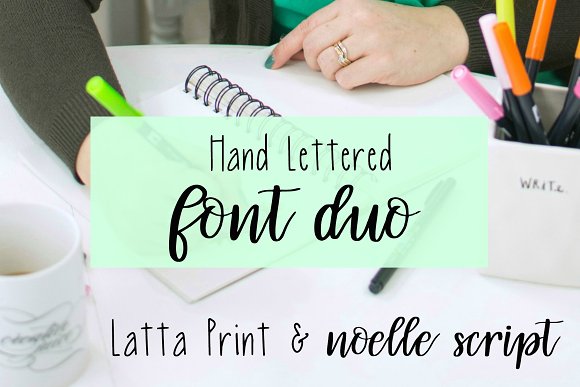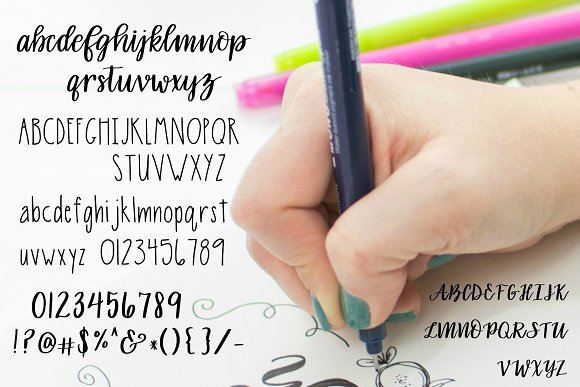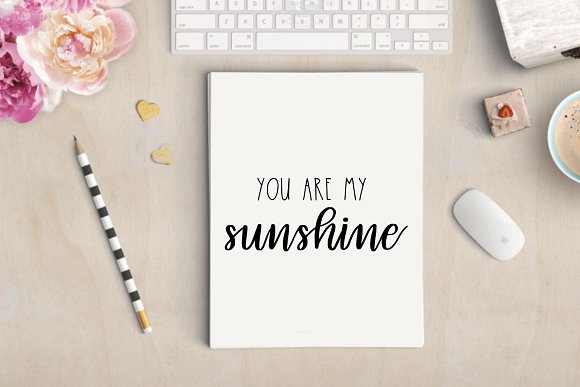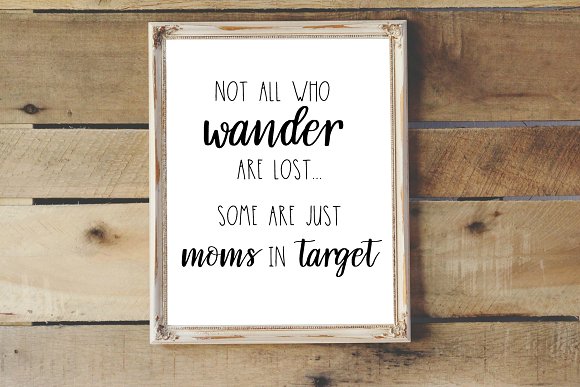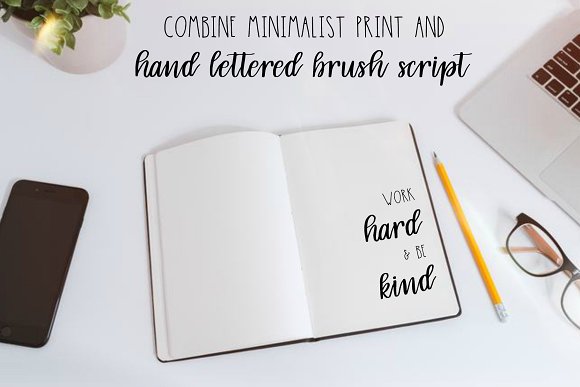
Hand Lettered Font Duo
Latta Print, a minimalist print font, pairs perfectly with Noelle Script, a brush lettered script font to create unforgettable designs. Get the look of authentic hand lettering done by a pro. Both fonts are hand drawn by artist Amy Latta, author of Hand Lettering for Relaxation {2017} and Express Yourself! {2018}